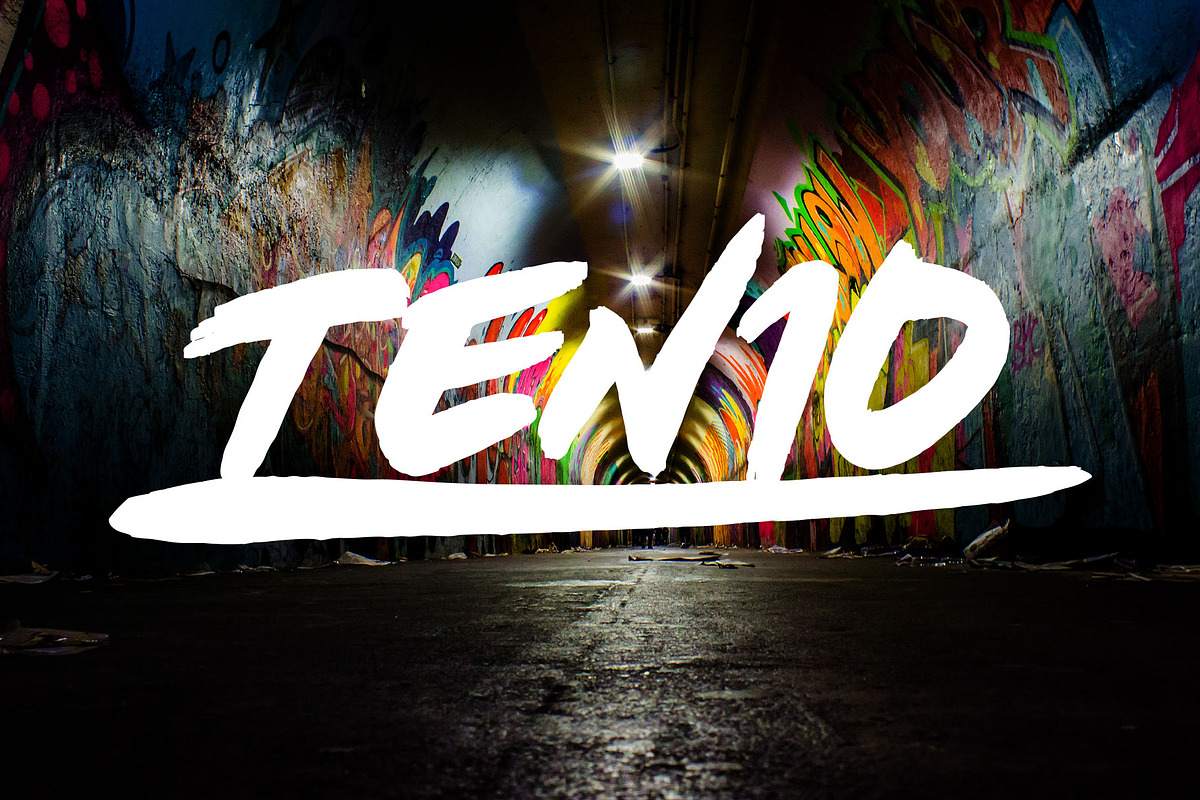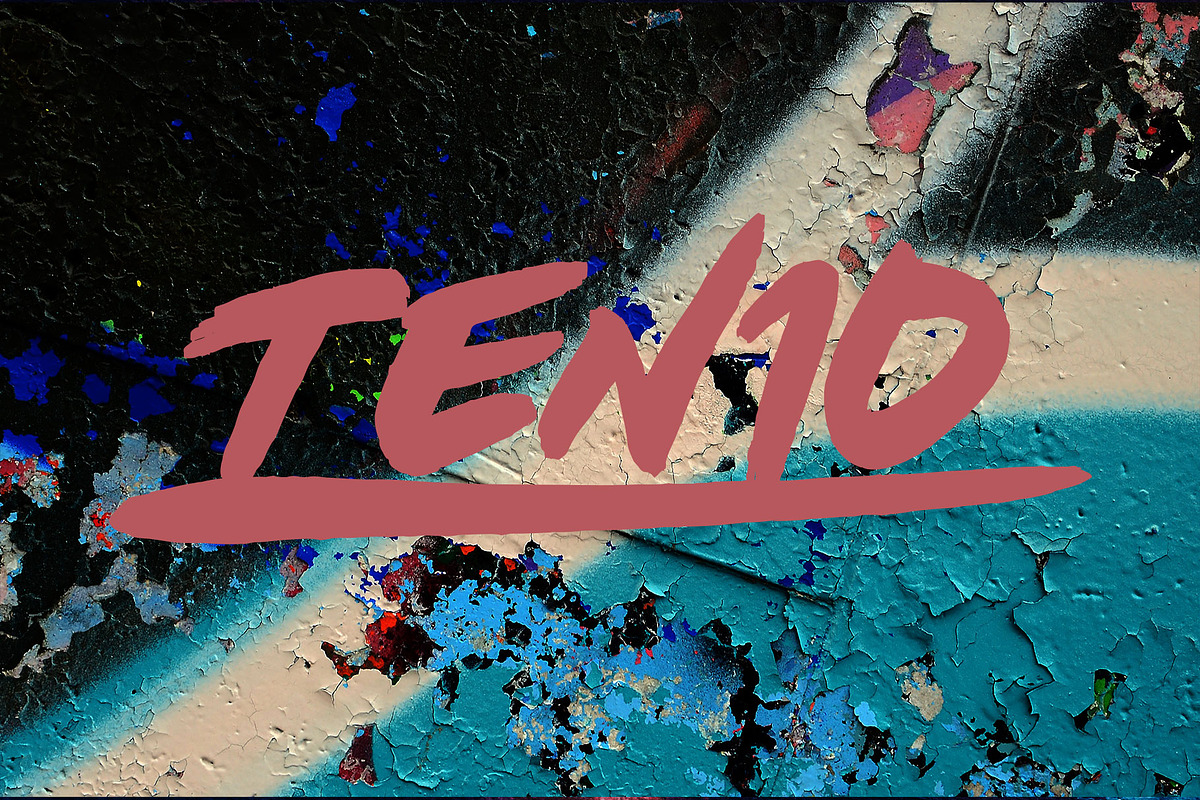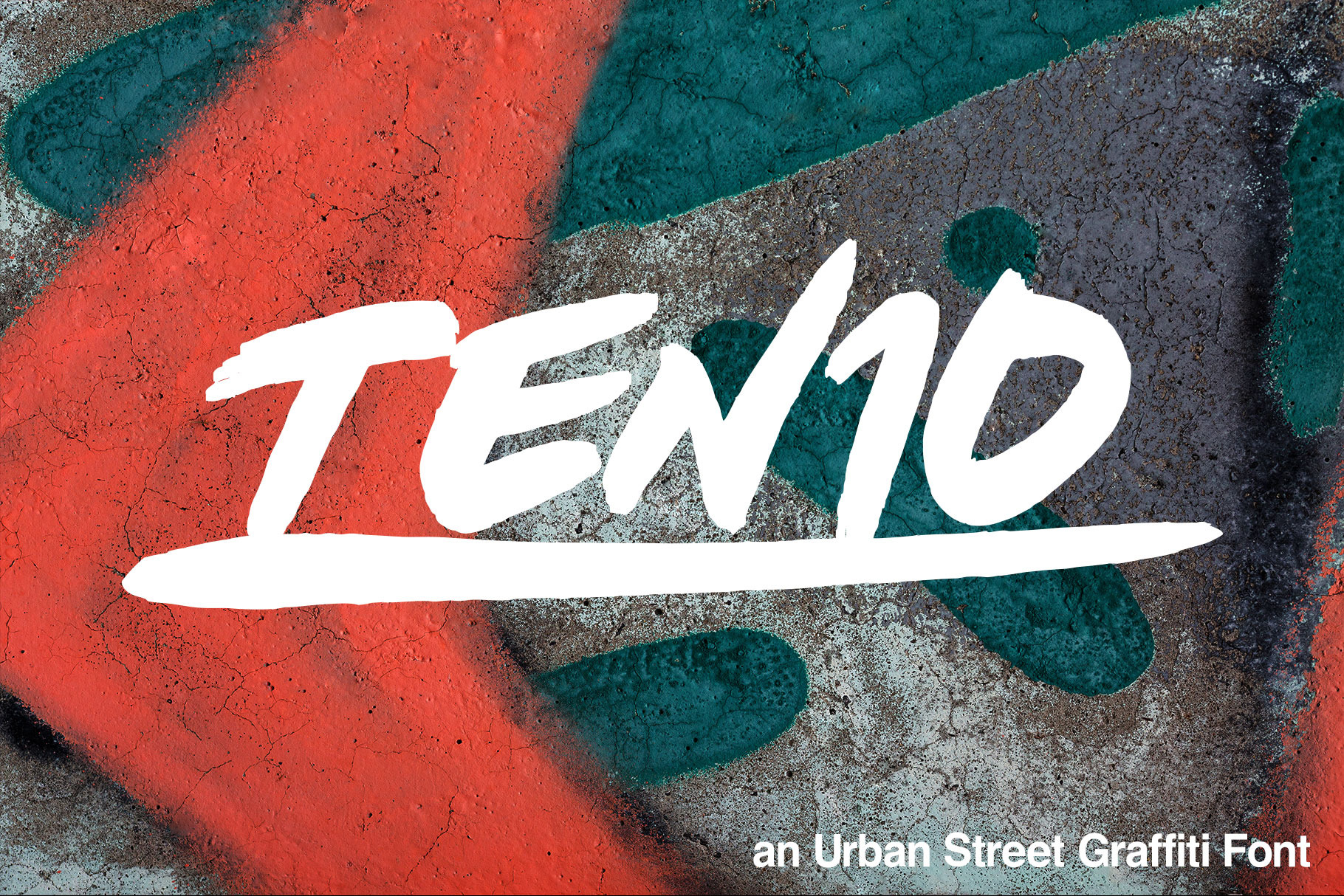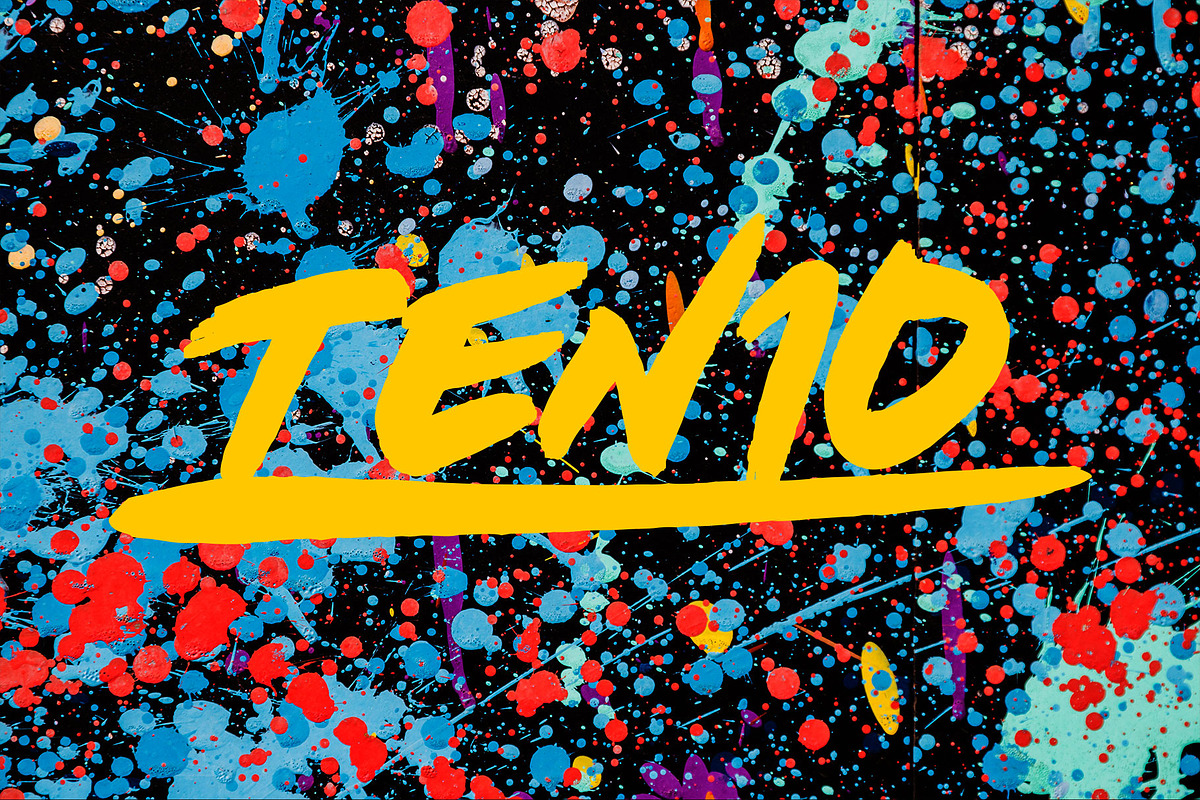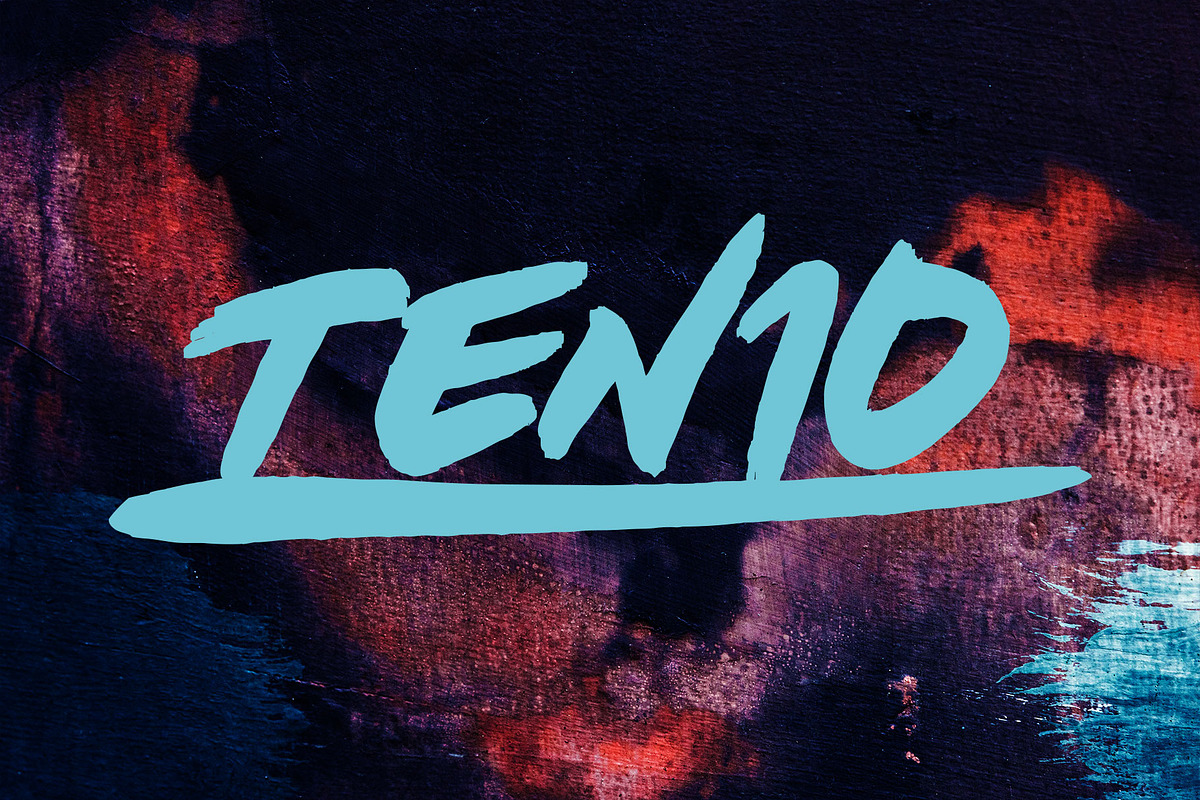
Ten10 - Urban Street Graffiti Font
Ten10 is an urban graffiti font ready to take your projects to the next level! An evolution from the Six3 & Six9 font originally created a few years back.
Inspired by the graffiti tags seen on the commute to work when on the train.